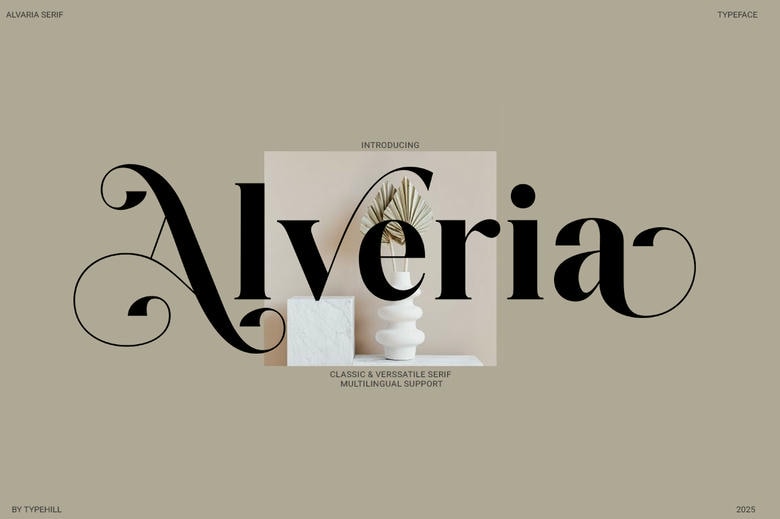
Alveria Font
Alveria is a classical serif font that beautifully borns both classical sophistication with modern versatility. Designed to perfection, Alveria includes high-fidelity shapes, sophisticated serifs and textured proportions all the better suited to editorial purposes, branding, packaging, logos, and high-end print typography.
Its understated air of luxury and modern edge give Alveria an upscale flavour to any boutique brand identity, magazine layout or even an elegant wedding invitation. The glyphs and swashes on the font are PUA encoded, so that they can be accessed easily in any design program without using special equipments.
Alveria Serif Font